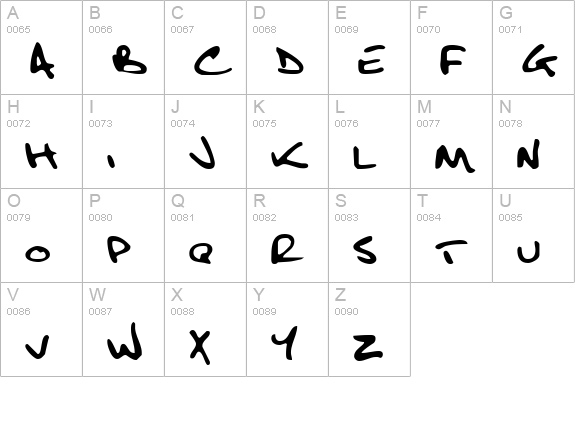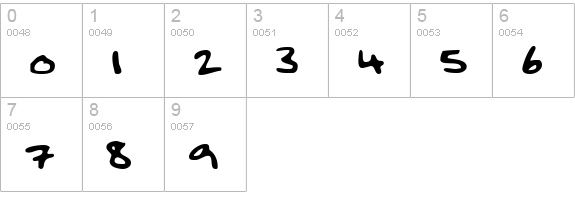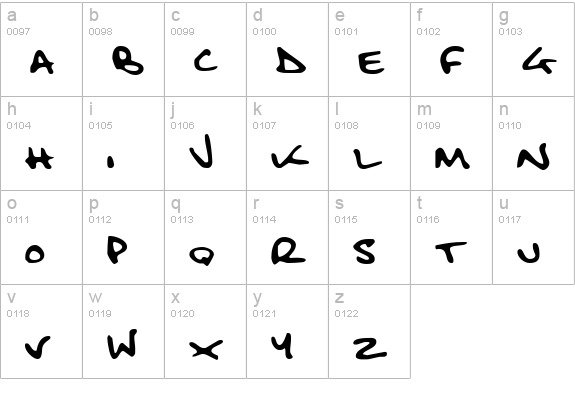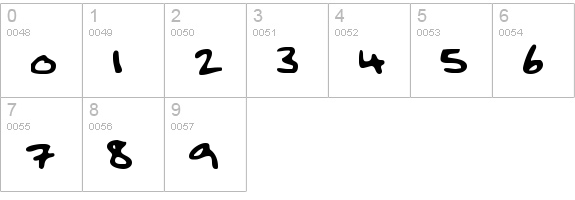
Fatboy Slim BLTC BRK Font Details
The Fatboy Slim BLTC BRK font is a bold and eye-catching typeface that exudes a sense of energy and modernity. With its unique design and distinctive letterforms, this font is perfect for adding a touch of flair to your projects. The thick strokes and sharp angles give the font a strong and confident appearance, making it ideal for headlines, posters, and other display purposes. Best of all, the Fatboy Slim BLTC BRK font is available for free download at FontsMarket.com. So whether you're a designer looking to spice up your creations or just someone in need of a stylish font for personal use, this font is a great choice. Don't miss out on the opportunity to enhance your designs with this striking and dynamic typeface - download it today and let your creativity shine!